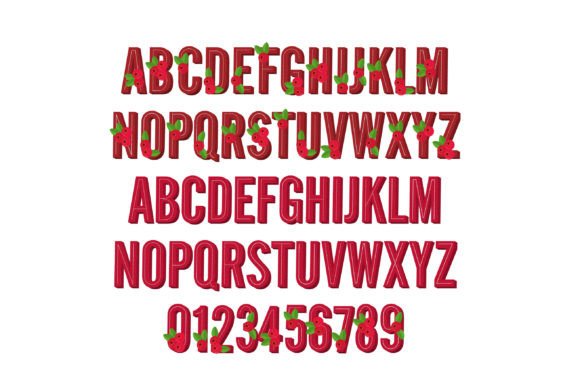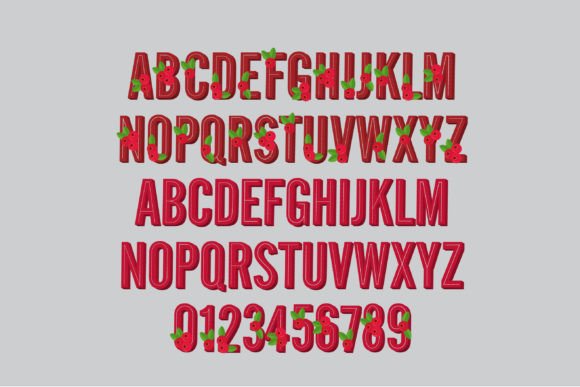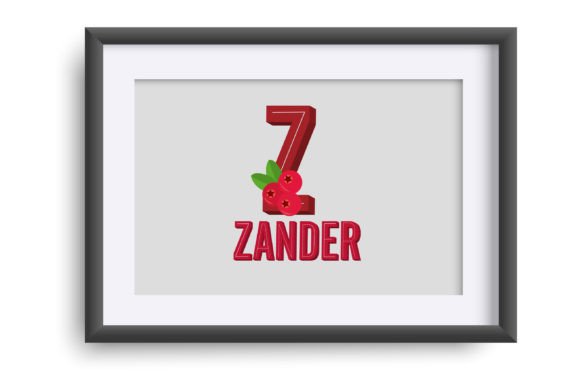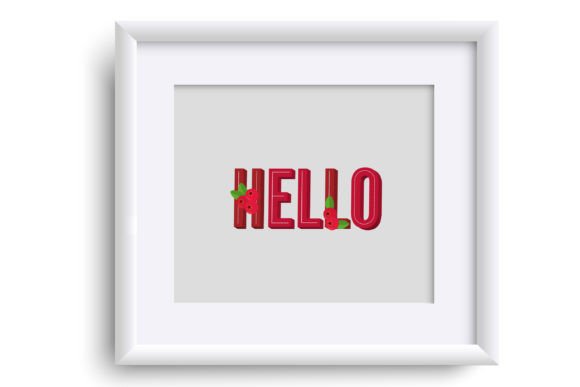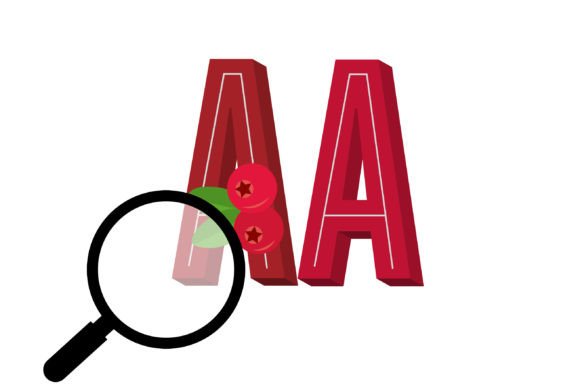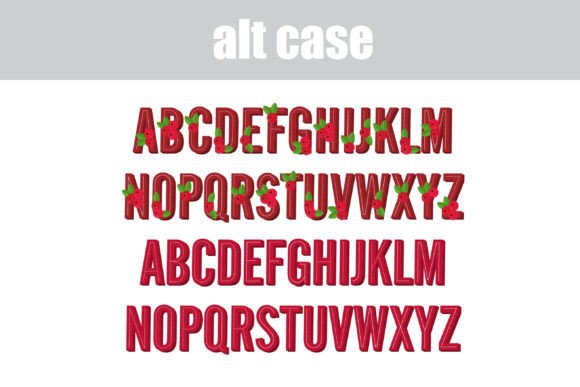
Cranberry Inline Font: A Vibrant and Fun Addition to Your Design Arsenal
Are you tired of using the same old fonts in your designs? Look no further than the Cranberry Inline Font, a full-color font that features sans serif, red uppercase lettering with a white inline. This unique font is perfect for adding a touch of personality to your designs, and its versatility makes it suitable for a wide range of projects.
What Makes Cranberry Inline Font So Special?
The Cranberry Inline Font is a full-color OpenType (SVG) font that features uppercase sports cranberries in a bold, sans serif style with a white inline. The font is designed to be used in both uppercase and lowercase, with the uppercase letters showcasing the cranberries. For best results, mix both cases as you type to create a visually appealing and dynamic effect.
Accessing Additional Colors with Alt Case
But that’s not all – the Cranberry Inline Font also comes with an alt case feature that allows you to access additional colors. Using your system or Silhouette’s glyph map, you can unlock a range of colors to add even more personality to your designs. This feature is perfect for designers who want to experiment with different color schemes and create unique visual effects.
The Benefits of Full-Color SVG Fonts
Full-color SVG fonts like Cranberry Inline offer a range of benefits for designers and crafters. They provide a unique and creative way to add personality to your designs, making them stand out from the crowd. With a full range of colors and styles to choose from, you can experiment with different visual effects and create stunning designs that capture attention.
The Cranberry Inline Font is perfect for designers and crafters who want to add a touch of whimsy and fun to their designs. Whether you’re creating:
- Signs
- Stationery
- Party decorations
- Craft projects
the Cranberry Inline Font is sure to inspire your creativity and help you create stunning designs that showcase your personality.
In conclusion, the Cranberry Inline Font is a vibrant and fun addition to any design arsenal. With its unique full-color design, sans serif style, and range of colors, this font is perfect for designers and crafters who want to add a touch of personality to their designs. Whether you’re a seasoned designer or just starting out, the Cranberry Inline Font is sure to inspire your creativity and help you create stunning designs that capture attention.